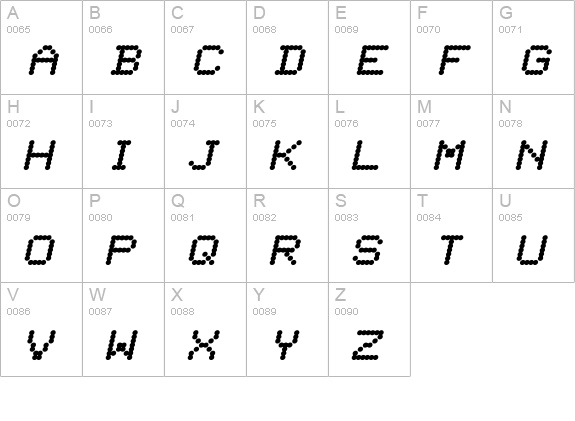
Ninepin BoldItalic Font Details
Ninepin BoldItalic font is a striking and dynamic typeface that exudes a sense of modernity and elegance. Its bold yet graceful curves and sharp angles make it perfect for adding a touch of sophistication to any design project. The strong and confident presence of this font is sure to make a statement and captivate the attention of viewers. What sets Ninepin BoldItalic apart is not only its unique design but also the fact that it is available for free download at FontsMarket.com. This means that you can easily access this beautiful font and incorporate it into your creative endeavors without any cost. Whether you are working on a branding project, a website design, or any other graphic design task, Ninepin BoldItalic is a versatile and eye-catching choice that will elevate your work to the next level. Don't miss out on the opportunity to enhance your designs with the bold and italic charm of Ninepin. Download it for free today at FontsMarket.com and unleash your creativity with this exceptional font.